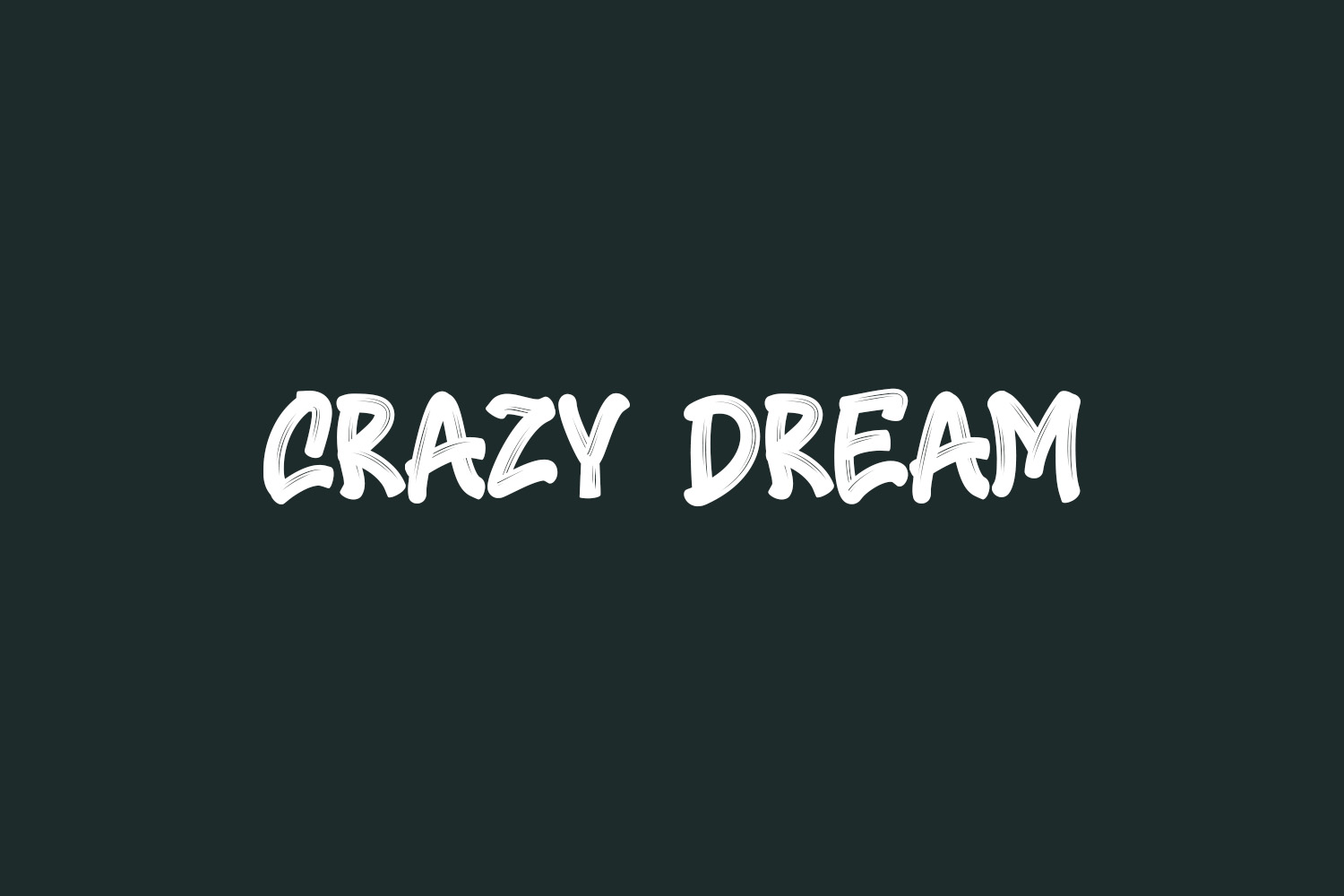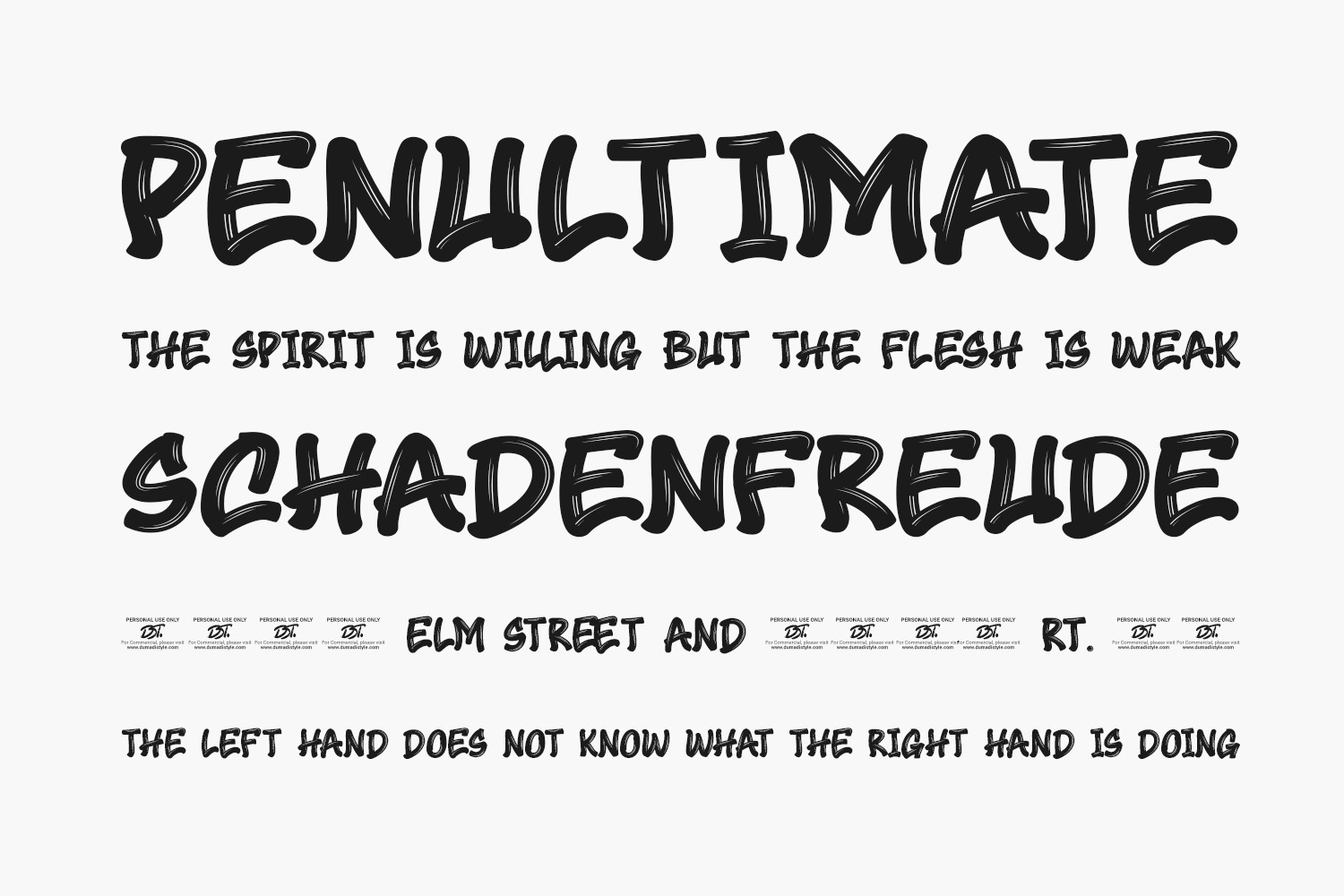
Crazy Dream Free Font is a cute and quirky display font. It will add an incredibly joyful touch to your designs. Add this beautiful display font to each of your creative ideas and notice how it makes them stand out. Crazy Dream Free Font was designed by DumadiStyle is a demo and free for personal use only. Please purchase the full version for commercial use.